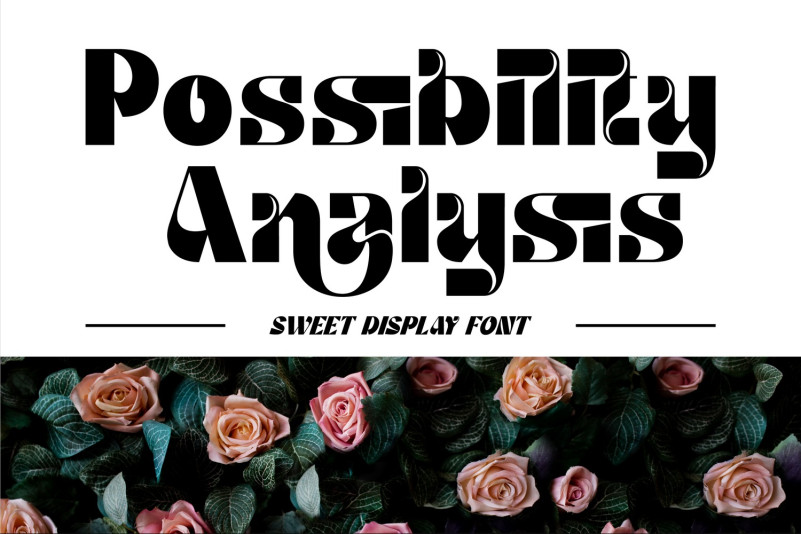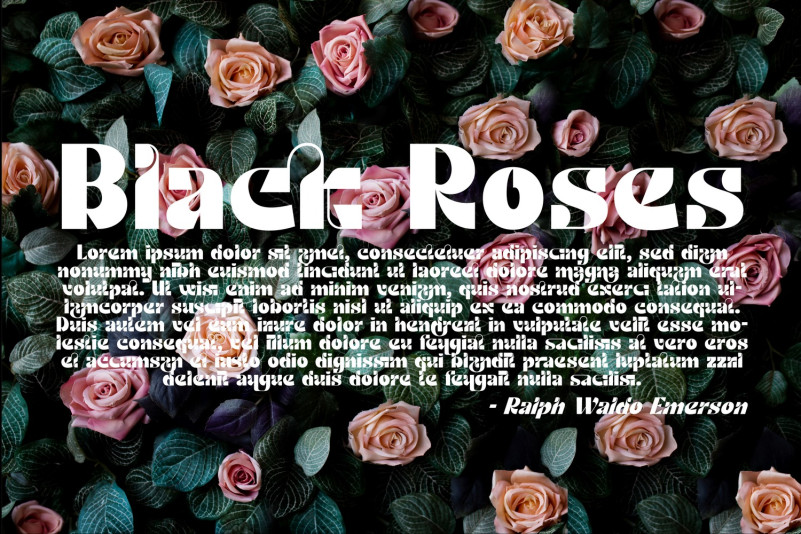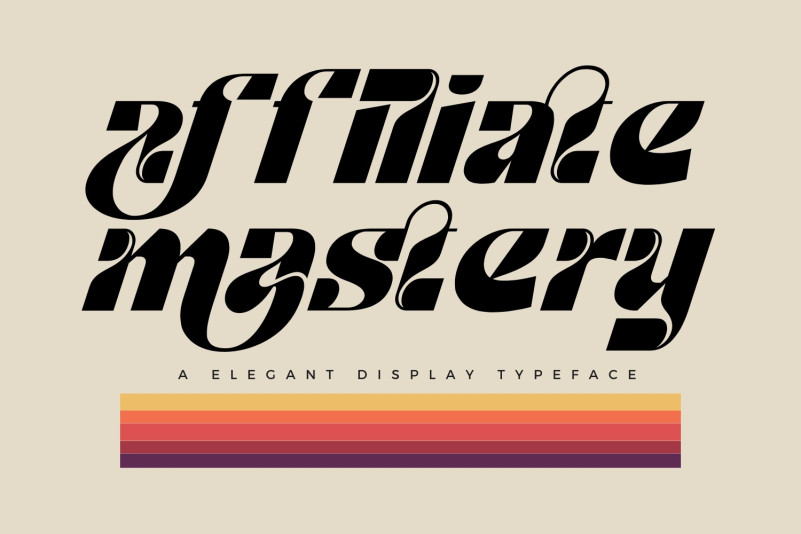
Affiliate Mastery Font
Affiliate Mastery Display Font is made with the concept of a modern contemporary font display that gives a unique impression. We are proud to provide you with one of the best adventure fonts. This font is good for logo design, Social media, Movie Titles, Books Titles, short text even long text letters, and good for your secondary text font with the script, sans, or serif.
To make it look more unique, here we prepared some ligatures:
ab ag af ah aj am an ar at ay cb cf ch ci cj ck cm cn cp cr ct cu db df dh dj dm dn dr eb eh ek et fj fb fh fk ft ha hb zx xx xs ug us ux tt tx ts st sj si sa rj ri ra qi qj ma mb na nb ka km kn kr kx ks jb jh jk jl jt ib ih ik il it fi fl